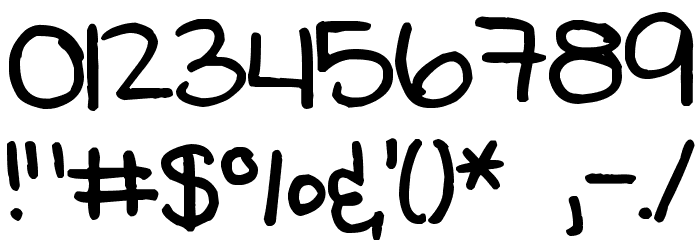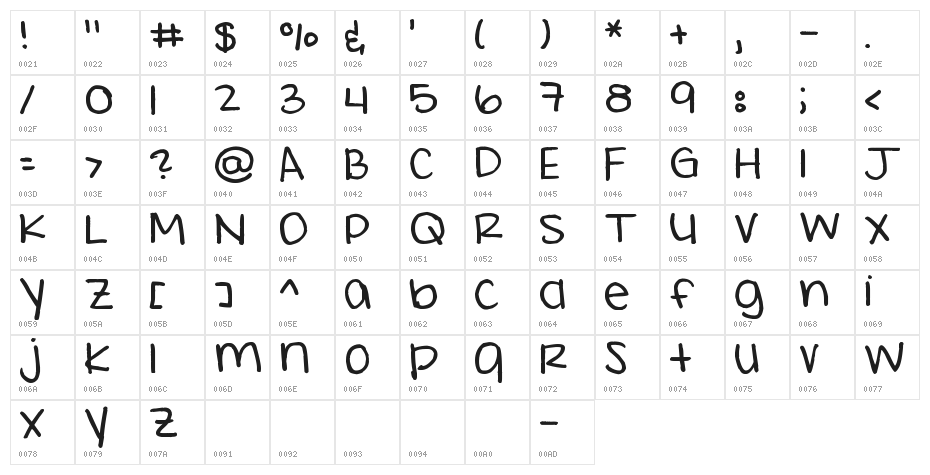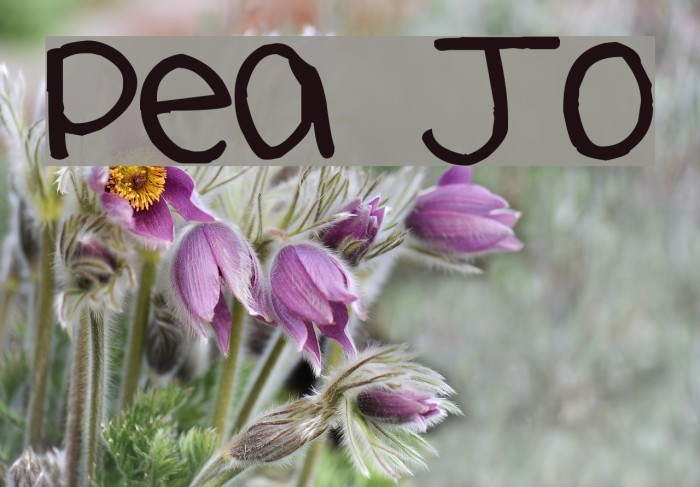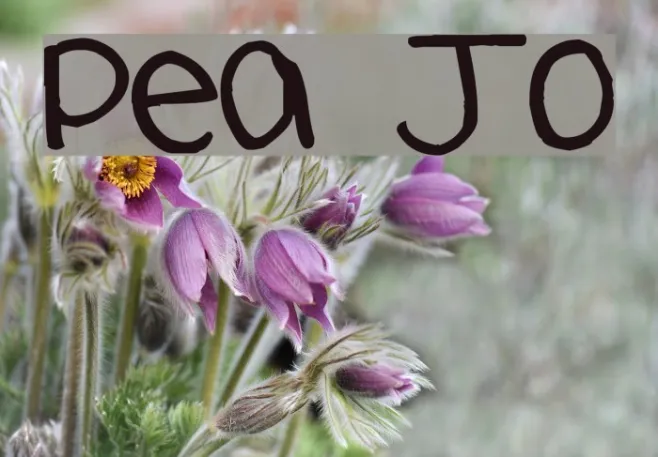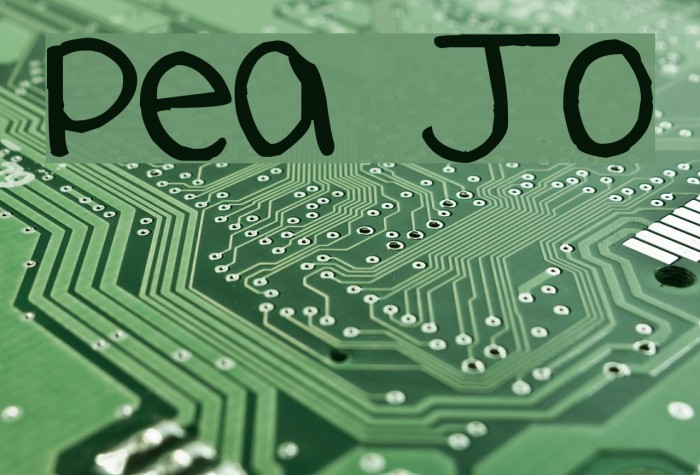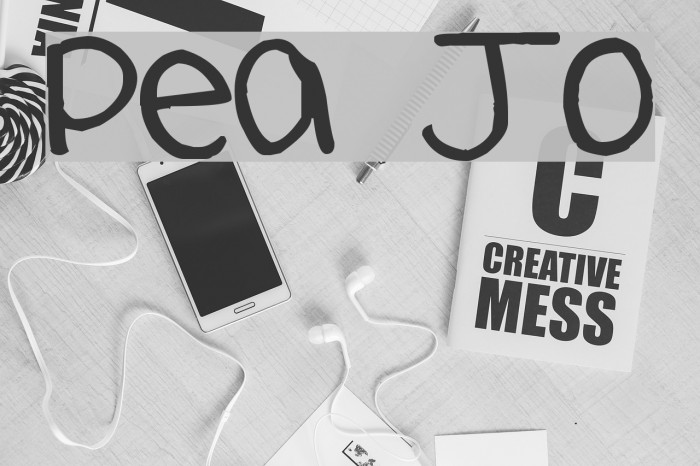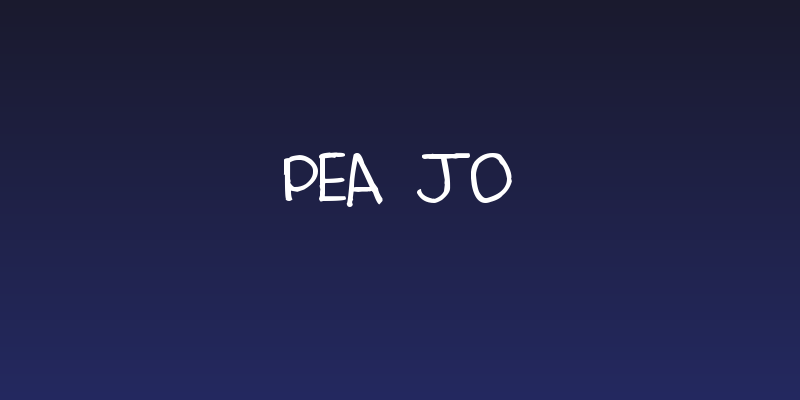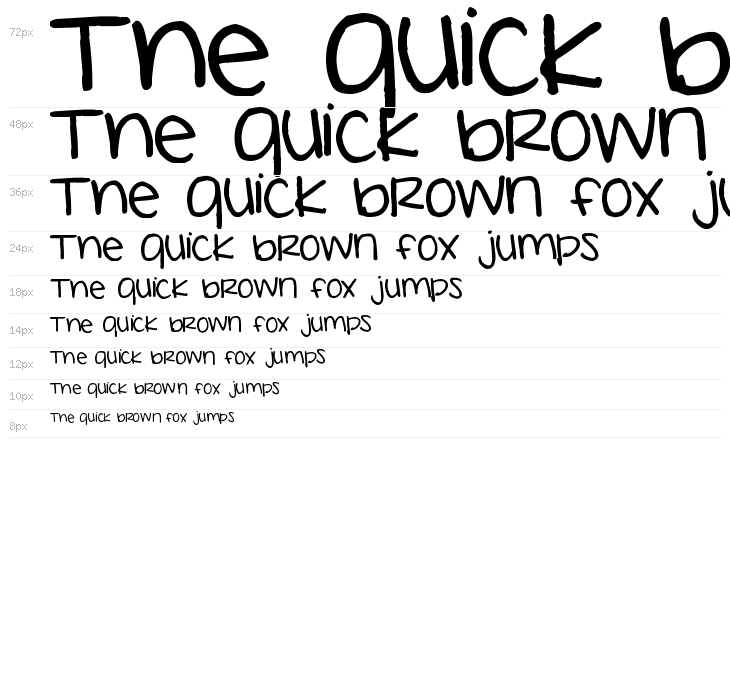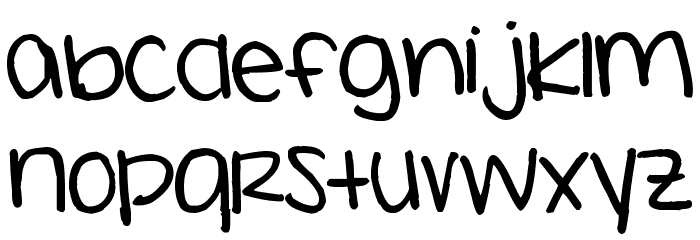
Pea Jo Font
Pea Jo Description
This playful and informal font features a handwritten style with a casual, friendly appearance. The letters are slightly uneven, adding a personal touch that mimics natural handwriting. The strokes are consistent in thickness, giving the font a cohesive look. The characters are well-spaced, ensuring readability while maintaining a relaxed aesthetic. This font includes both uppercase and lowercase letters, numbers, and a variety of special characters, making it versatile for different uses.
| Use Case | Logos, Greeting cards, Informal branding |
| Proposed Projects | Ideal for personal projects, greeting cards, children's books, and informal branding. |